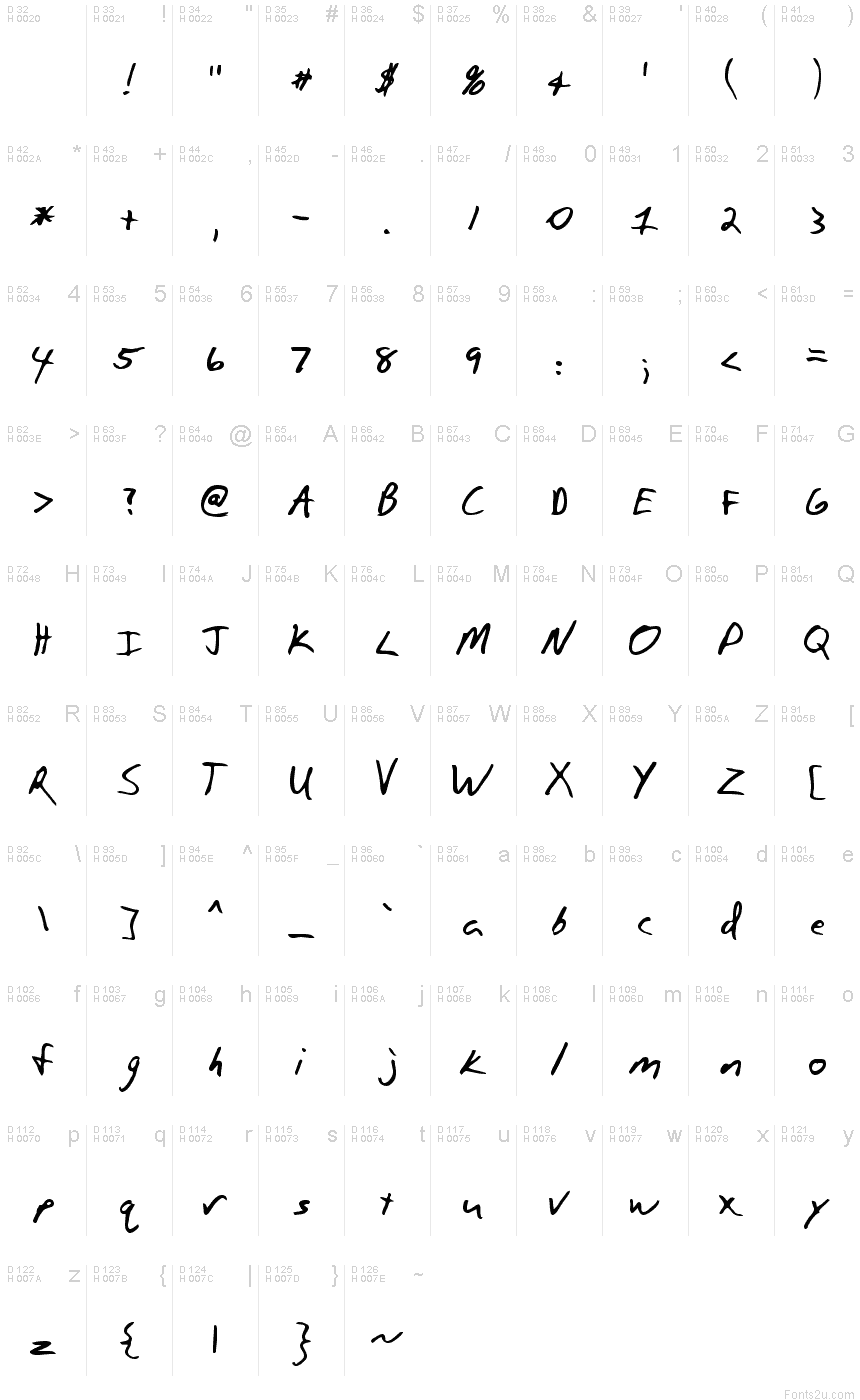
Paulson Regular
Paulson is a free handwritten script font with a loose, flowing rhythm and rounded joins between the strokes. The letters keep a slight wobble and a quick, continuous movement, so the face feels closer to casual pen writing than to a polished calligraphic script.
Paulson font suits signature-style logos, greeting cards, thank-you notes, boutique labels, social posts, and short invitation lines because the cursive stays personal and informal. It also fits packaging accents and header details that need a handwritten note without extra ornament.